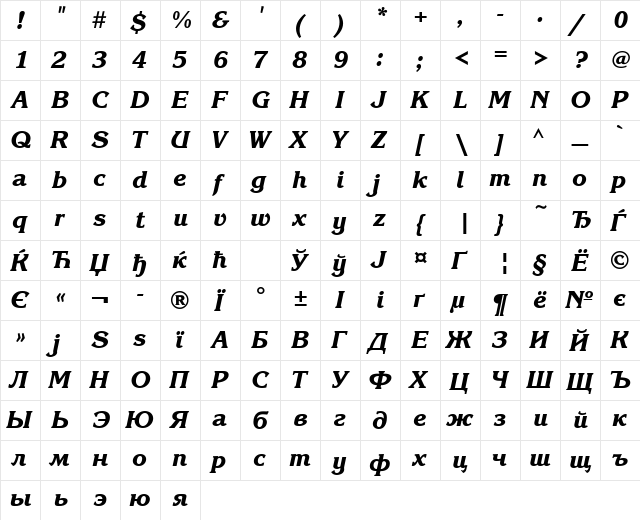
KorinnaBlackCTT Italic
Design Context for KorinnaBlackCTT Typeface
KorinnaBlackCTT takes a measured approach to typography — its balanced proportions and neutral character make it a reliable workhorse for both digital and print work. The dynamic lean of this cut emphasises speed and emphasis in any layout.
Pro Tip: Use KorinnaBlackCTT for emphasis, pull quotes, and subheadings where its slanted energy can add rhythm to the layout.